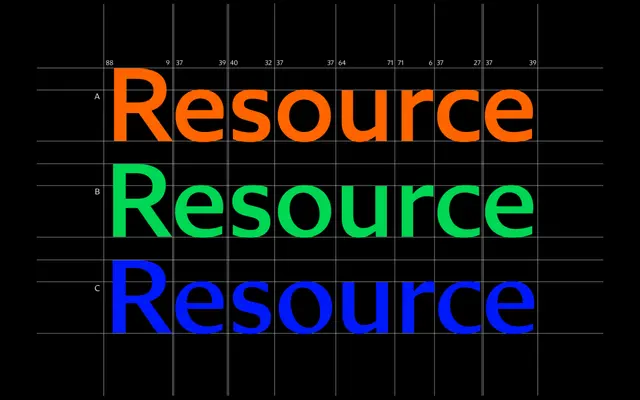
Diverse A
DDOTT · Dominik Thieme · 2022
A lively monolinear humanist sans by Dominik Thieme, grounded in Gerrit Noordzij's stroke theory and the skeletons of Johnston and Gill Sans.
Diverse A is the monolinear entry in a three-family system that steps through increasing stroke contrast, all sharing identical spacing and kerning so families can be swapped within a layout without adjustment. Six weights run from Light to Black with true italics, totalling 12 styles, and an extended OpenType feature set offers geometric alternates that shift the calligraphic character of the letterforms. Six years in development, the project draws on Noordzij's broad-nib pen model to define how orientation determines stroke contrast across the three families.
Diverse A is a monolinear humanist sans with a skeleton derived from early humanist designs such as Johnston and Gill Sans, shaped by the broad-nib pen model. It is the first of three families exploring increasing stroke contrast across Gerrit Noordzij's contrast model.